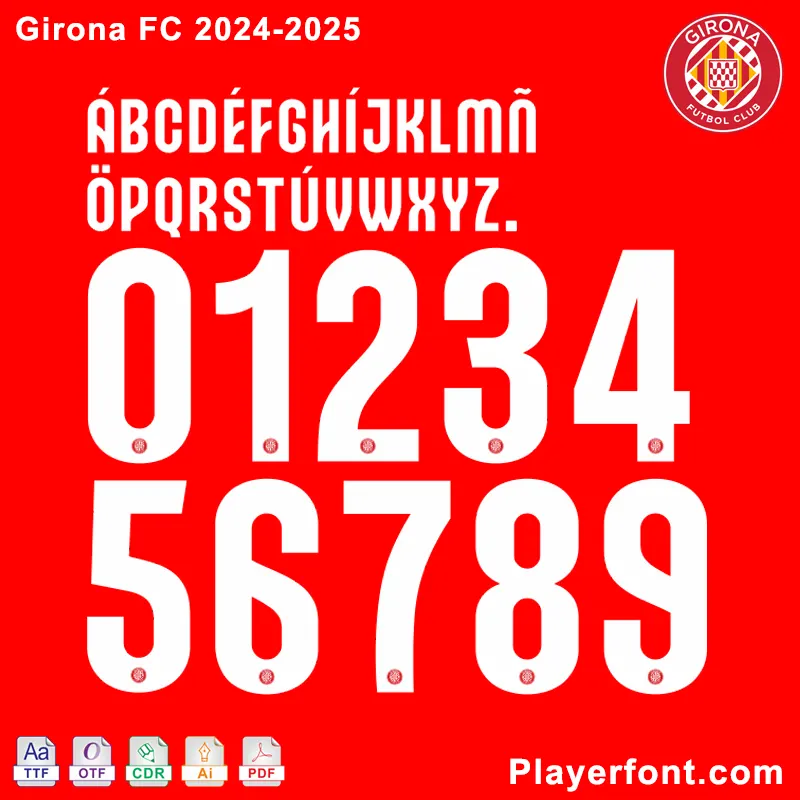
The Girona FC 2024-2025 Font is based on the official name set, with the Girona FC club logo at the bottom of the number. Can be used custom Girona FC 24-25 jersey name set.
Girona FC 2024-2025 Font kit Details and Use